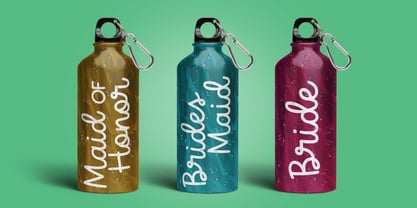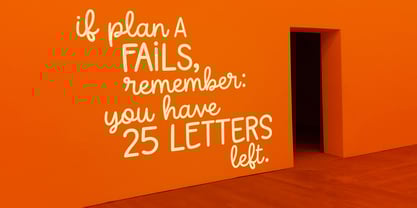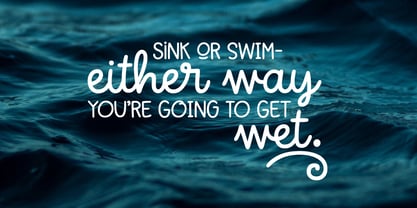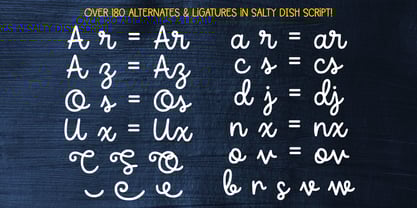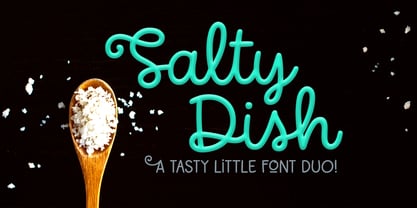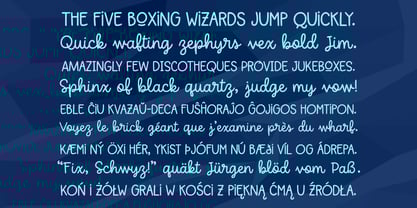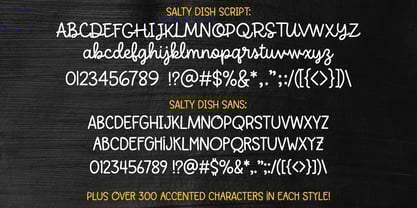
Salty Dish
by Missy Meyer
The Salty Dish Font Family was designed by Missy Meyer and published by Missy Meyer. Salty Dish contains 2 styles and family package options. More about this family
I started this one out with just one set of letters - the script font that is Salty Dish Script. But when I finished it, I decided it just wasn't enough! So I used those letters as a base to create Salty Dish Sans, a supporting all-caps font with two tight uppercase sets. You can use each font separately, or bring them together to team up on your project!
Both of the Salty Dish fonts have a ton of punctuation, over 300 accented characters for language support, and of course they've been extensively cleaned and smoothed so they're great for cutting, crafting, and printing at any size!
Salty Dish Script also contains 190 bonus characters in the Private Use Area - alternates, decorative swashes, and a ton of multi-letter ligatures to make sure you have all of the smooth connections you need!
About Missy Meyer
Missy Meyer has decades of lettering and illustration under her belt; when looking to change careers in her 40s, graphic design seemed like the perfect way to go. She soon found her way into font design, and has been in love ever since. She specializes in quirky, casual, fun fonts that don't take themselves too seriously, but are still clean and easy to work with. (What did she do before design? It's been an amazing variety of jobs, including: bank teller, pizza chef, accountant, camp counselor, casino dealer, singing improv comedian, and game show host at Walt Disney World.)